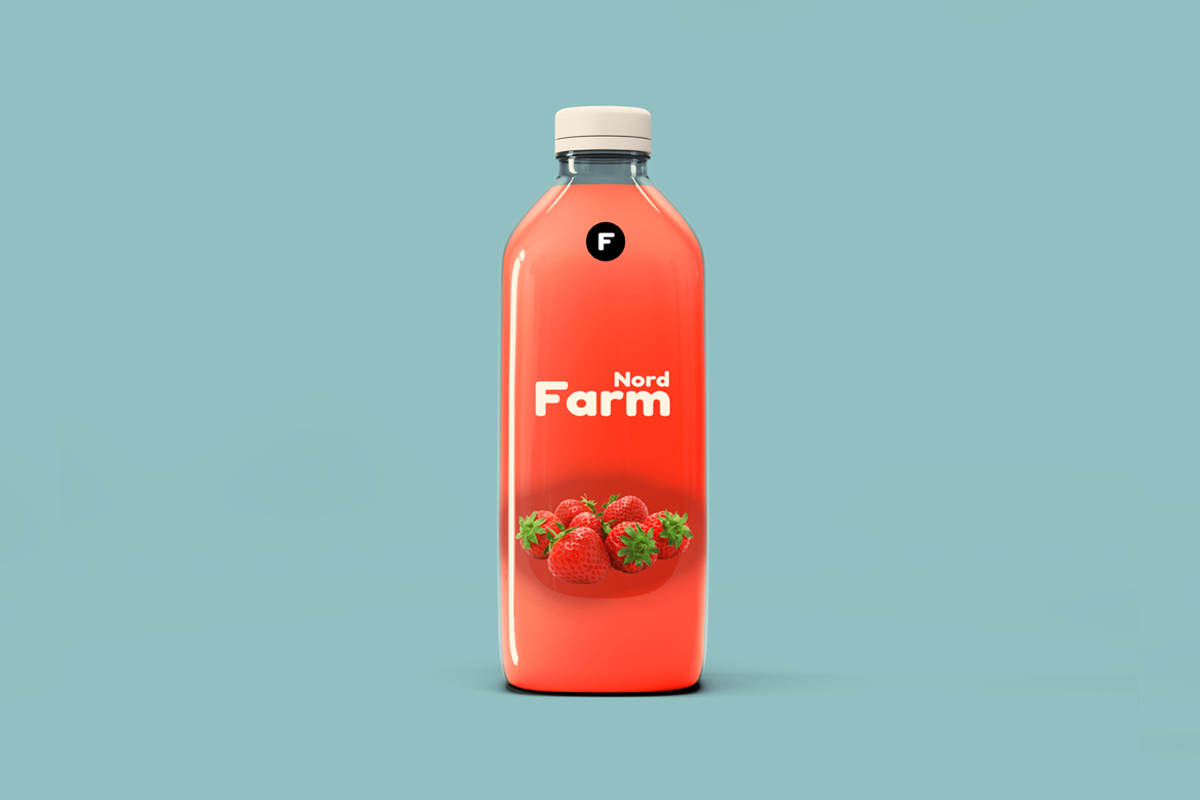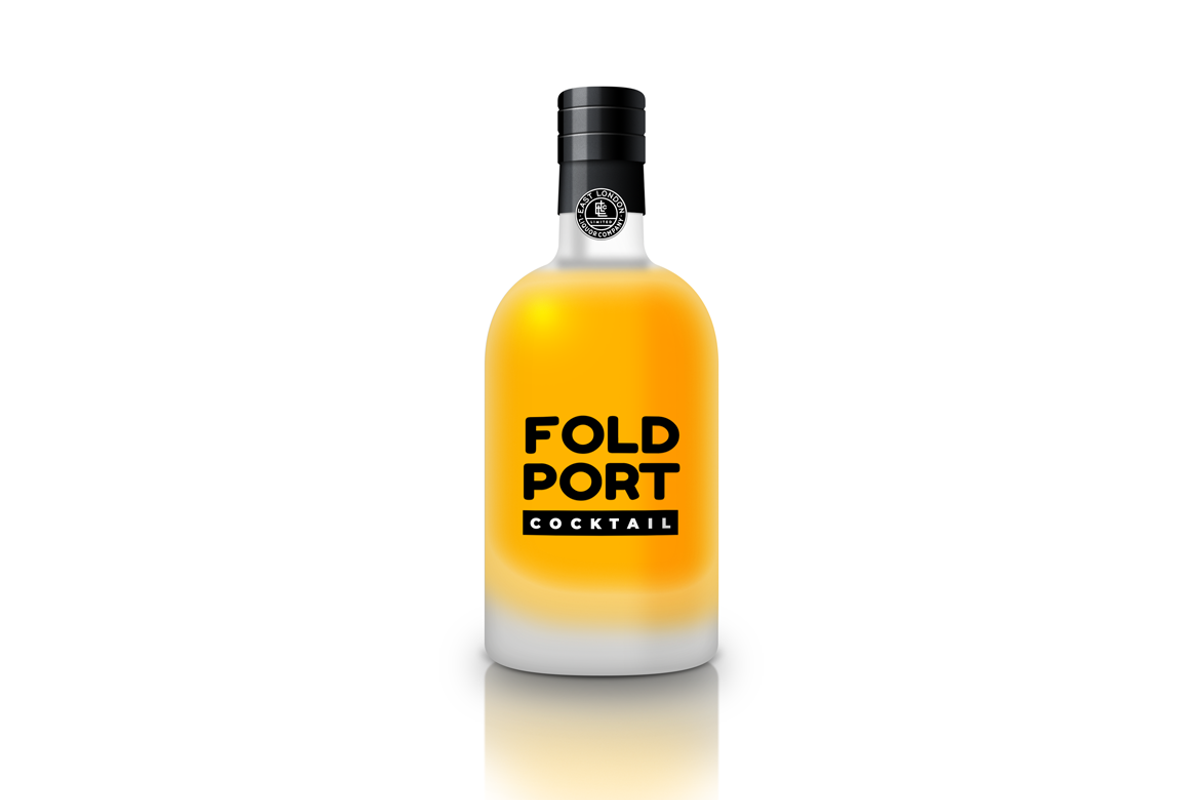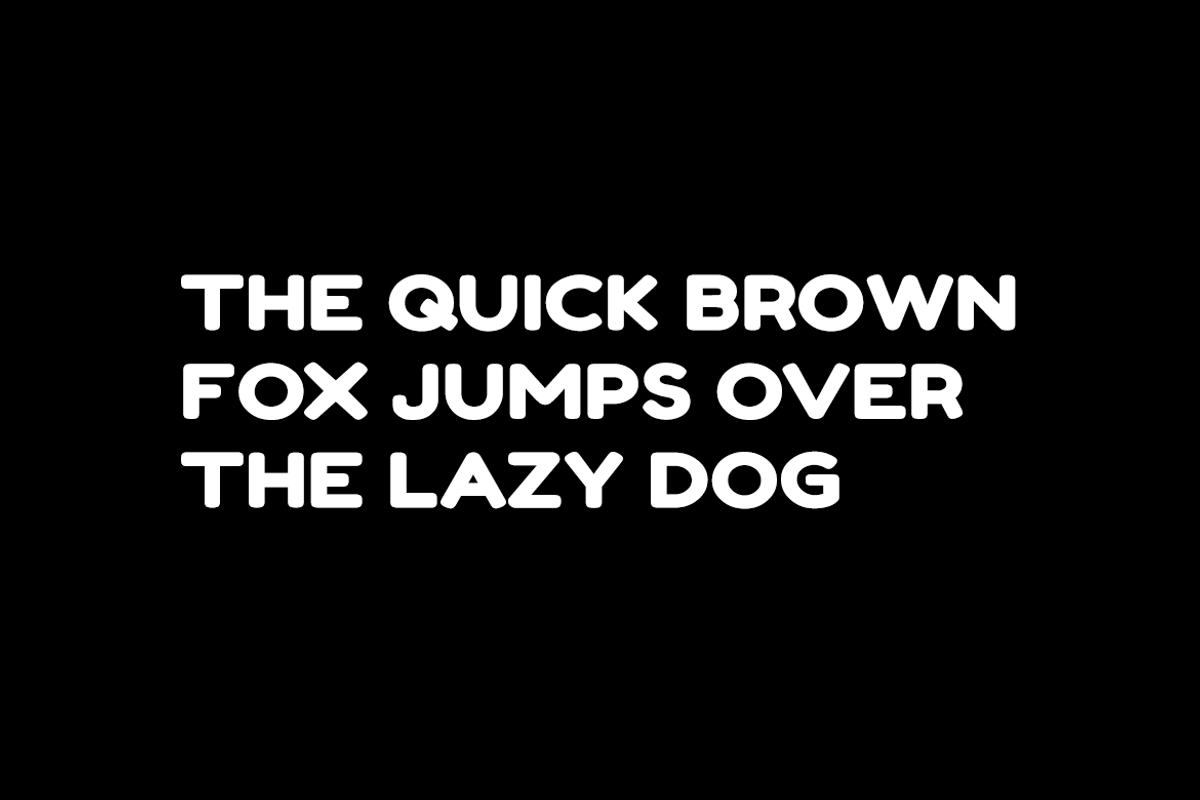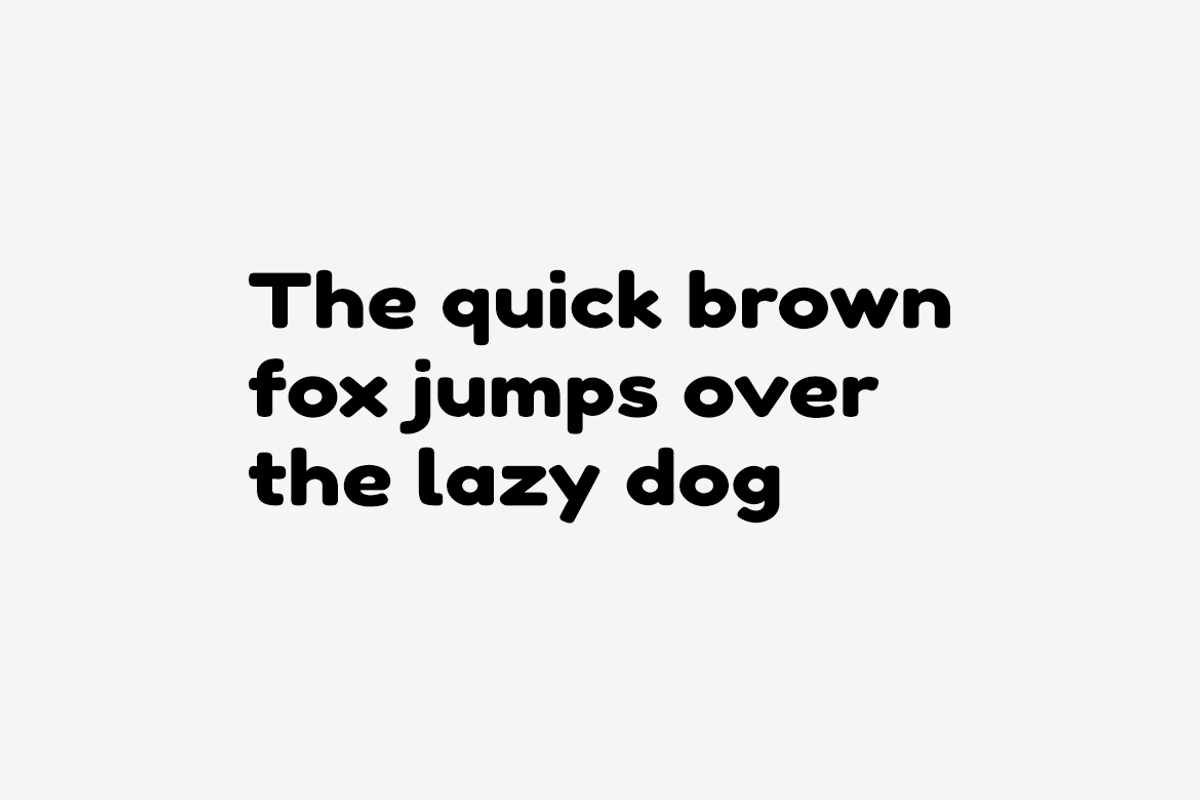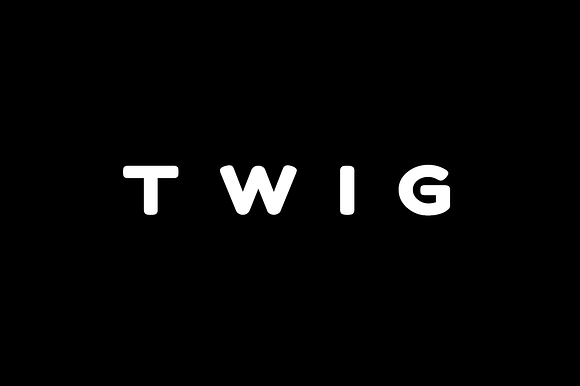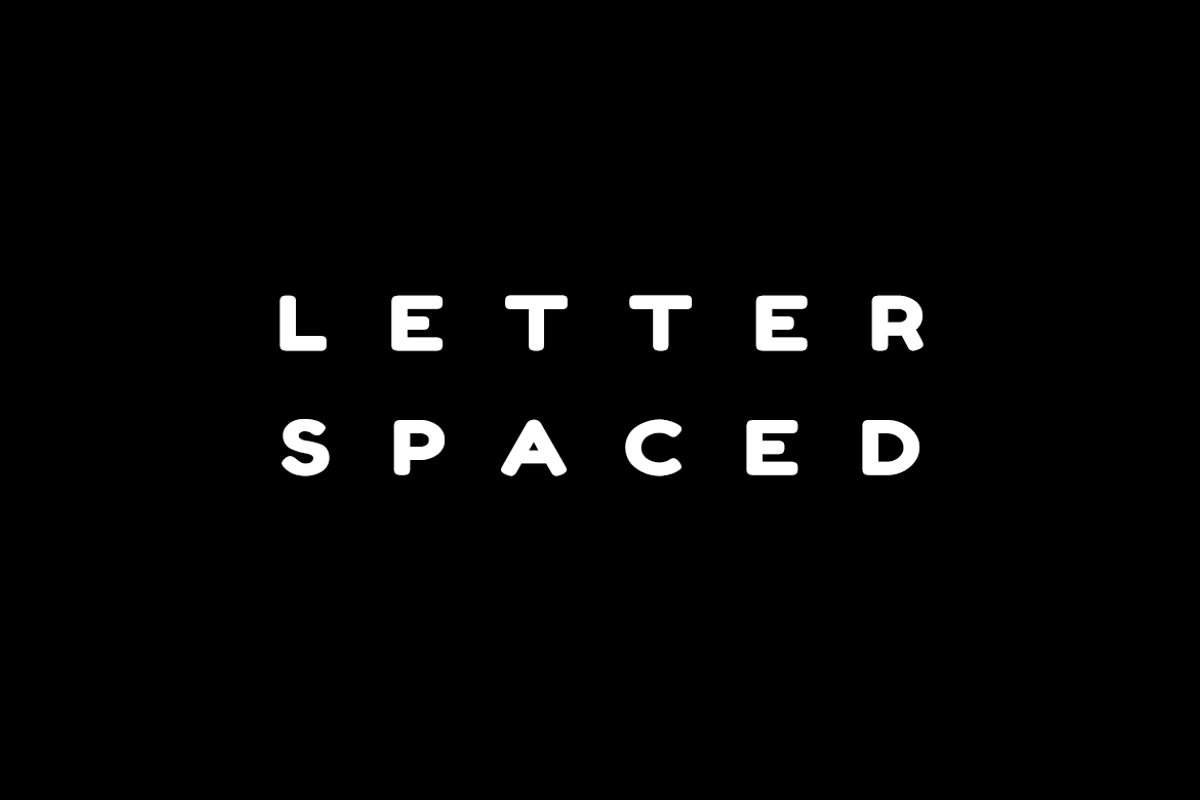
TWIG - Display / Headline Typeface
TWIG is a simple cute typeface for headlines, big text, branding, logotypes & display usage. This font is also perfect for creating outstanding logos, promotional content and marketing graphics that can really grab attention from your visitors. Please see the examples shown above to get an idea about the capability of this typeface.
TWIG - Display / Headline Typeface by Designova® fits naturally into Branding, posters, packaging, typography.